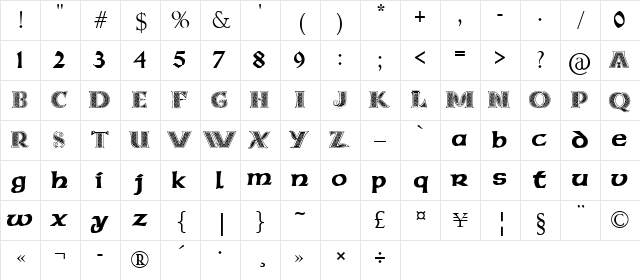
Pauls Celtic Font 3 Regular
Design Context for Pauls Celtic Font 3
Pauls Celtic Font 3 is a composed and adaptable typeface that performs quietly and consistently across a wide range of design contexts.